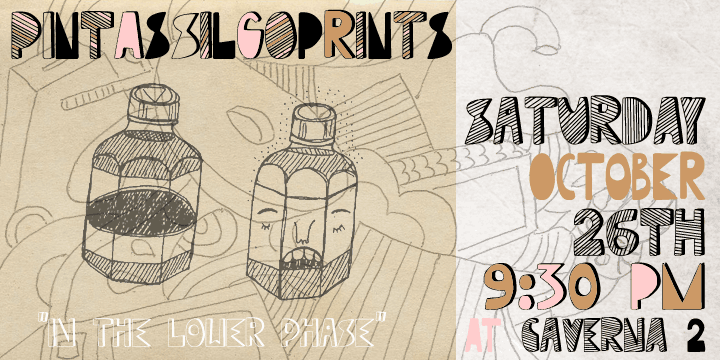
Mondiale™
Designed by: Ricardo Marcin, Erica Jung
Designed when: 2009
Contained in Category: Decorative & Display
Design owned by: PintassilgoPrints
Mondiale
Mondiale is a three-flavor unicase family with a tasty hand drawn feel.
It contains uppercase letters and uses the lowercase as variations, providing flexibility for your designs.